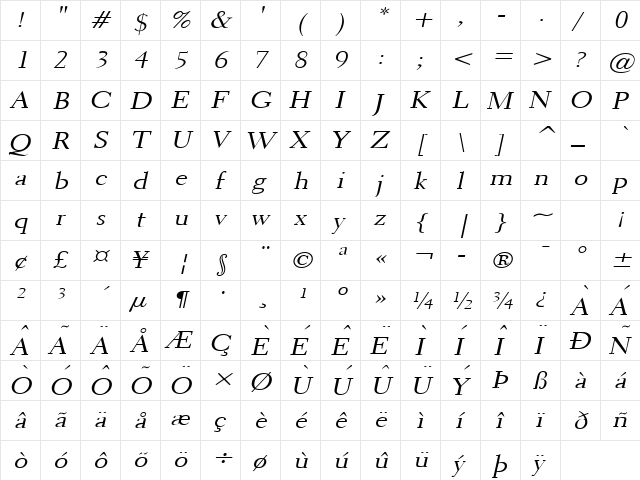
Transit 2 Wide Italic
Design Context for Transit 2 Wide Typeface
Transit 2 Wide is a composed and adaptable typeface that performs quietly and consistently across a wide range of design contexts. The dynamic lean of this cut emphasises speed and emphasis in any layout.
Pro Tip: Use Transit 2 Wide for emphasis, pull quotes, and subheadings where its slanted energy can add rhythm to the layout.